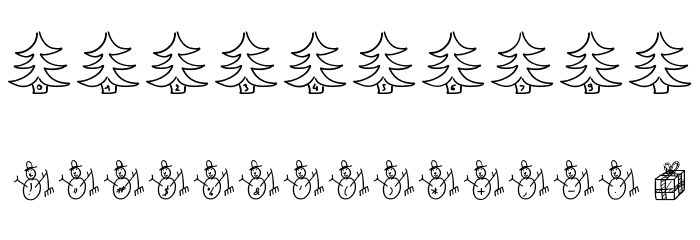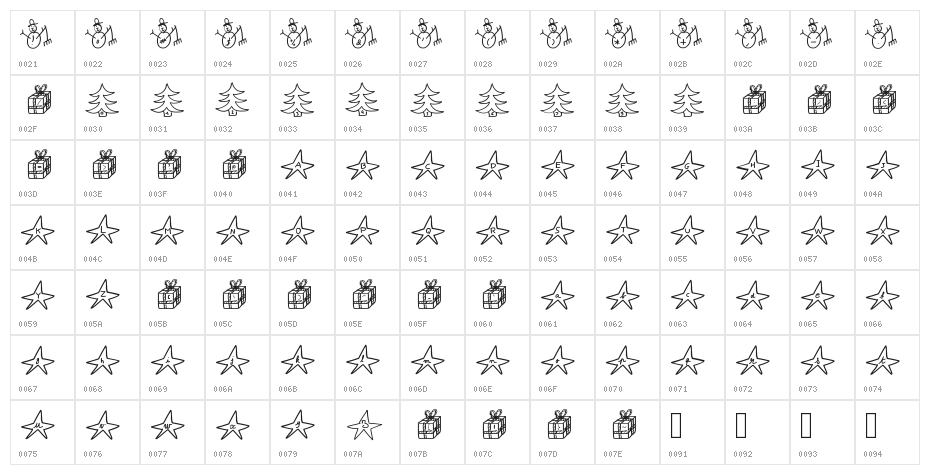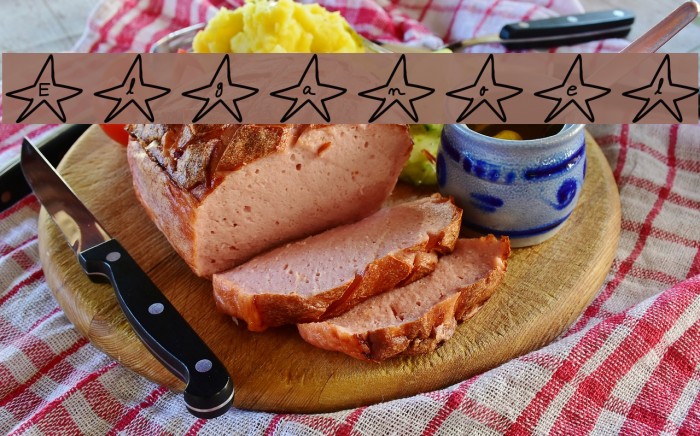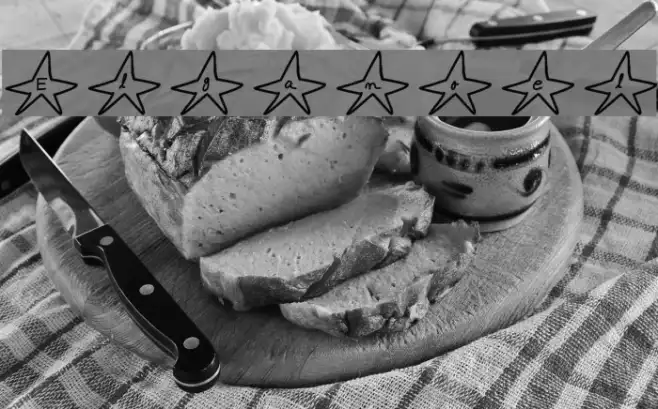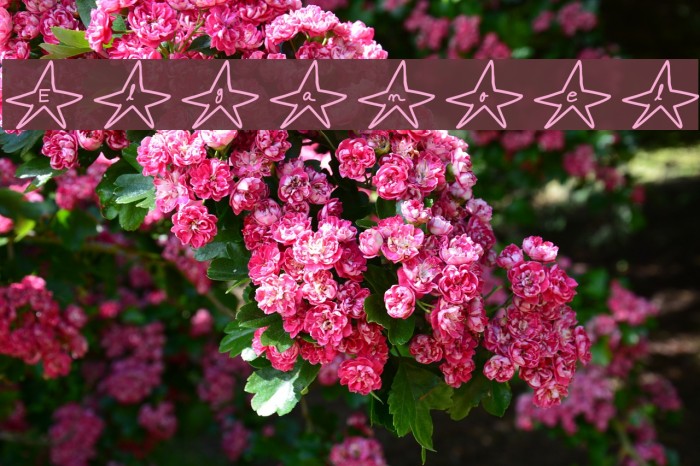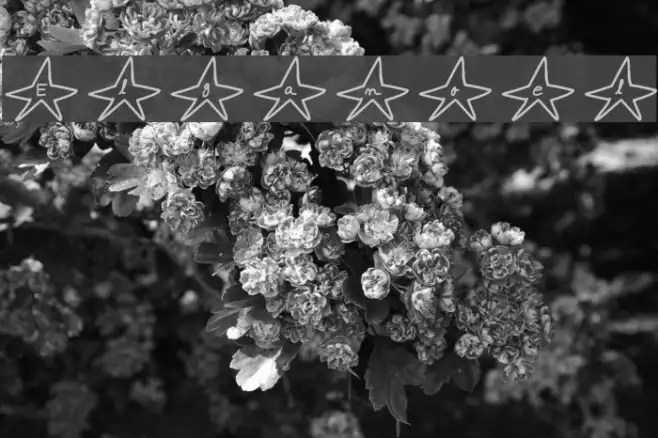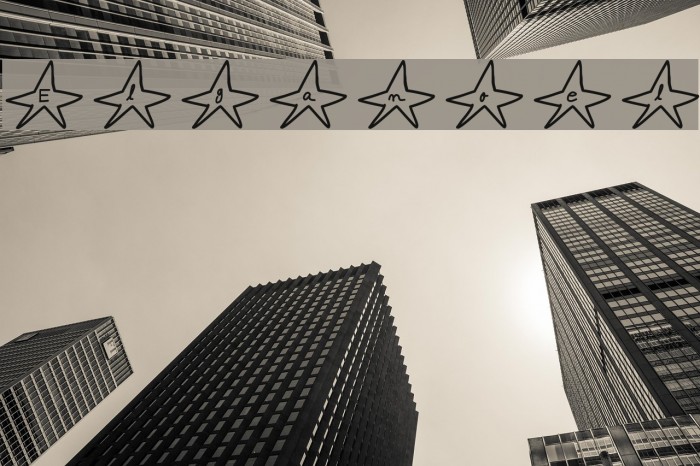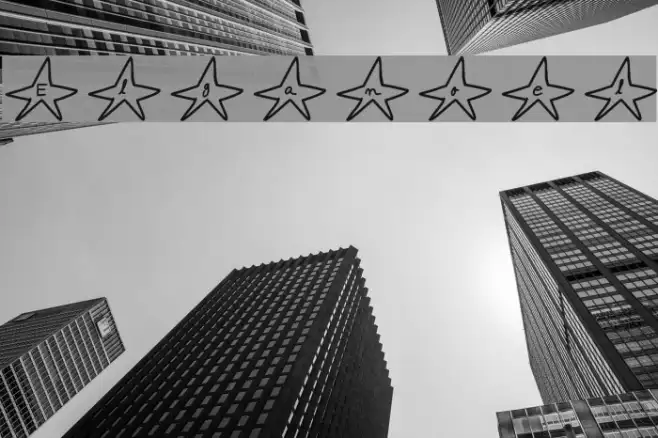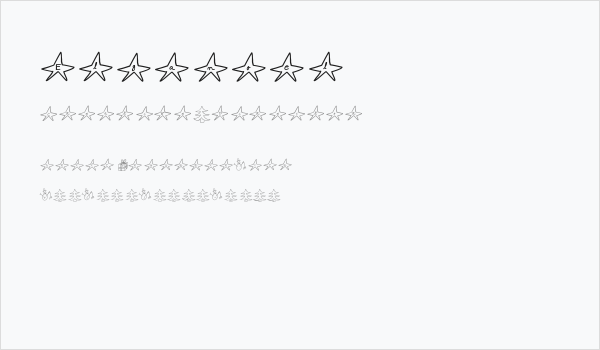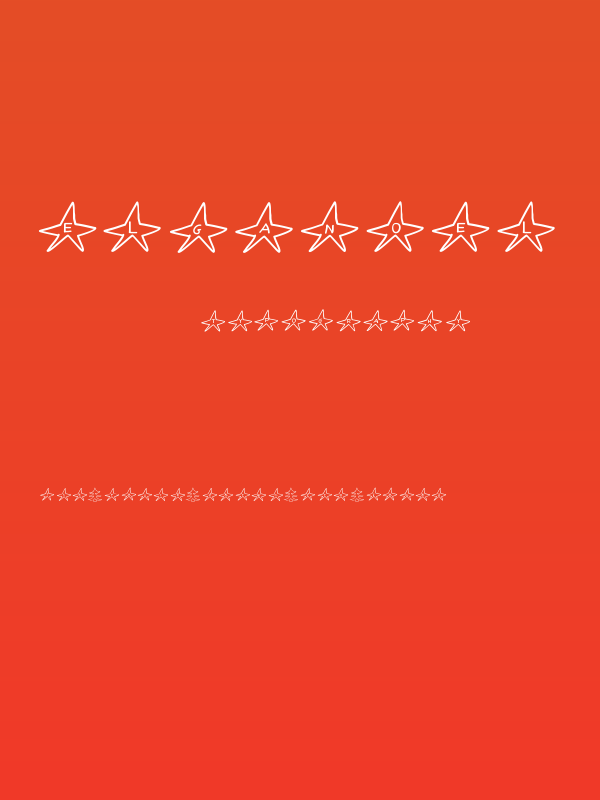
Elganoel Font
Elganoel Description
This font features a whimsical and decorative style, with each character enclosed within a star shape. The uppercase and lowercase letters are consistent in their playful presentation, making it ideal for festive or celebratory themes. The numbers are uniquely represented by Christmas trees, adding a seasonal touch. Special characters are depicted as snowmen and a gift box, enhancing the holiday spirit. The overall design is charming and eye-catching, perfect for projects that require a fun and festive aesthetic.
| Proposed Projects | Ideal for holiday cards, festive banners, party invitations, and seasonal marketing materials. |